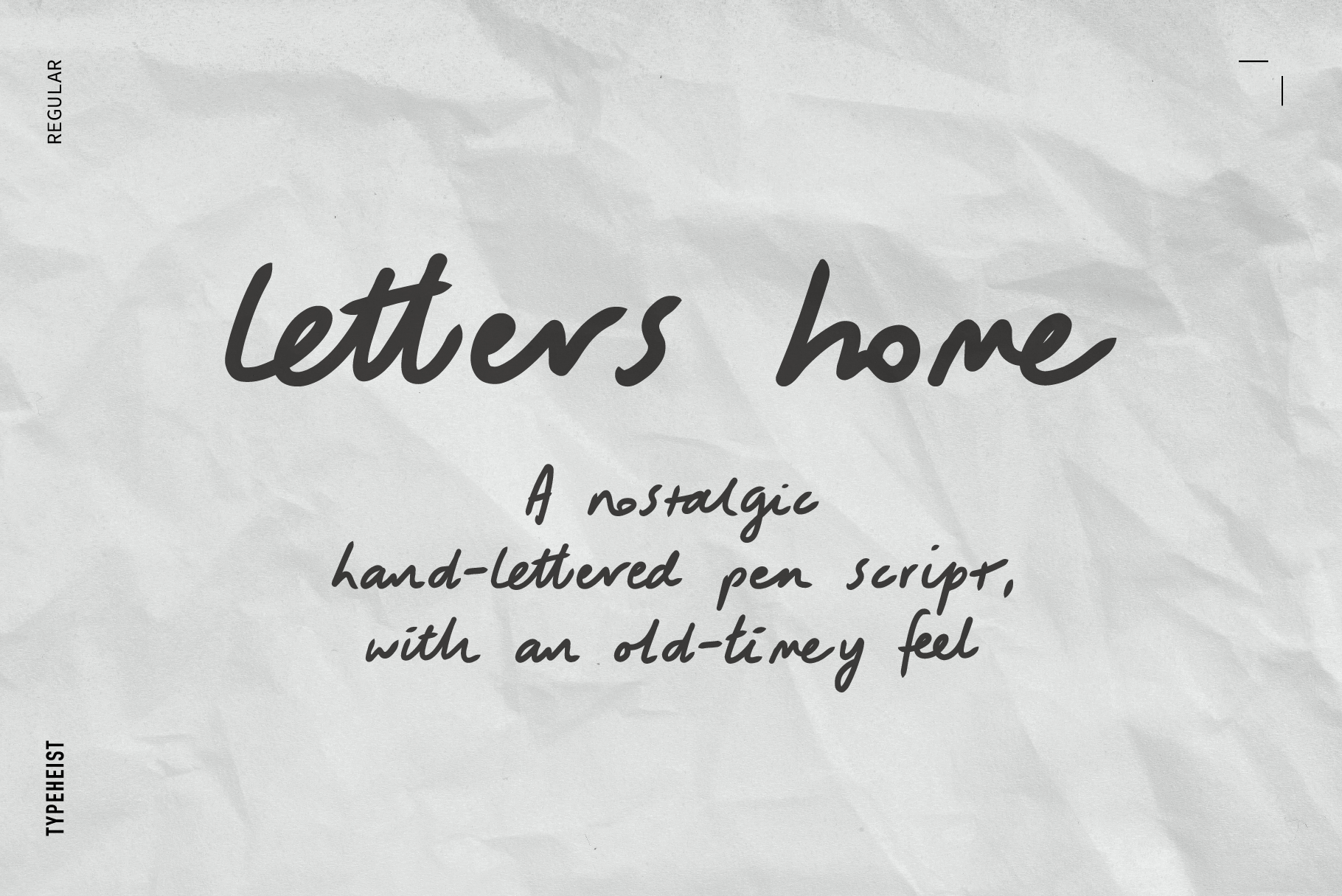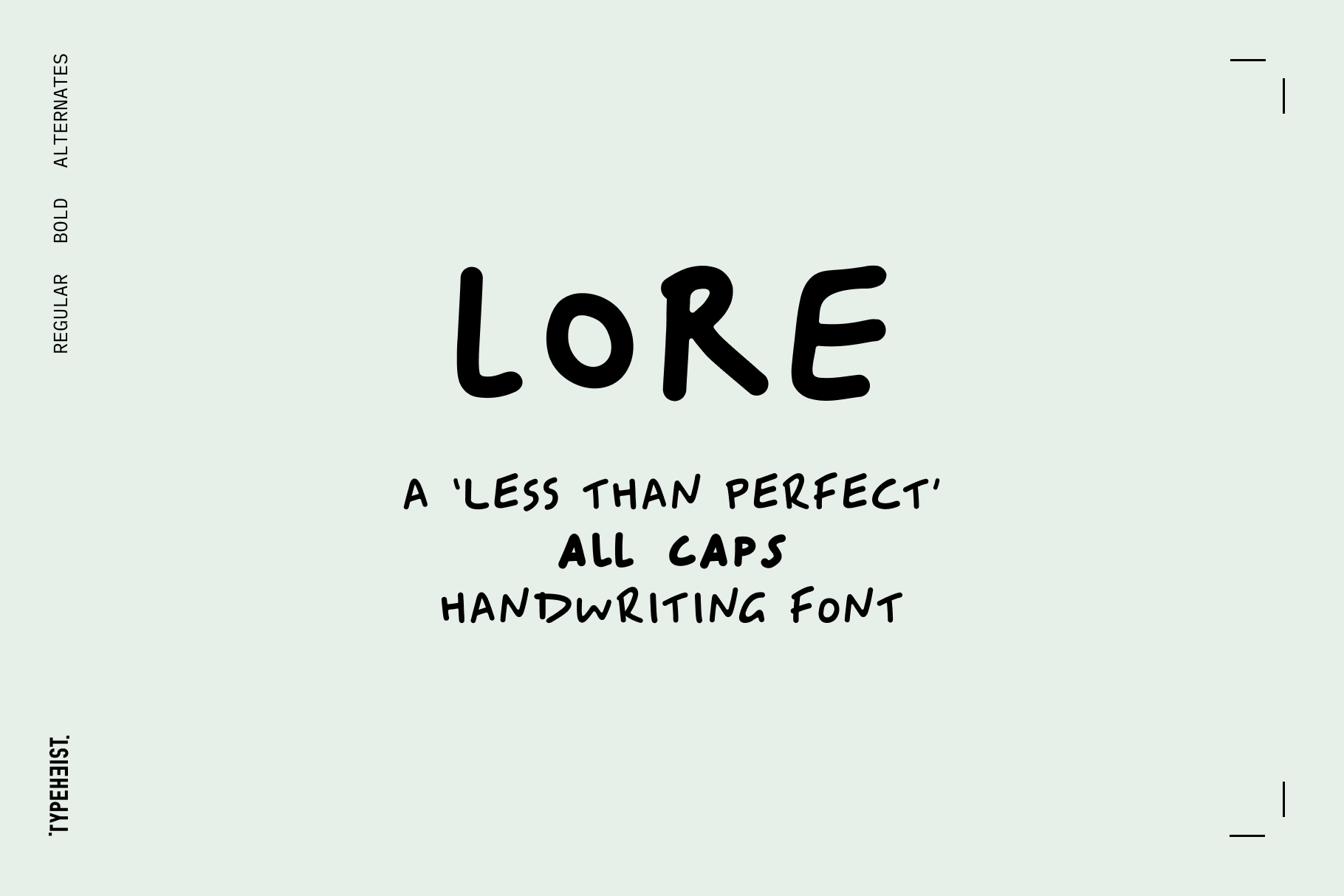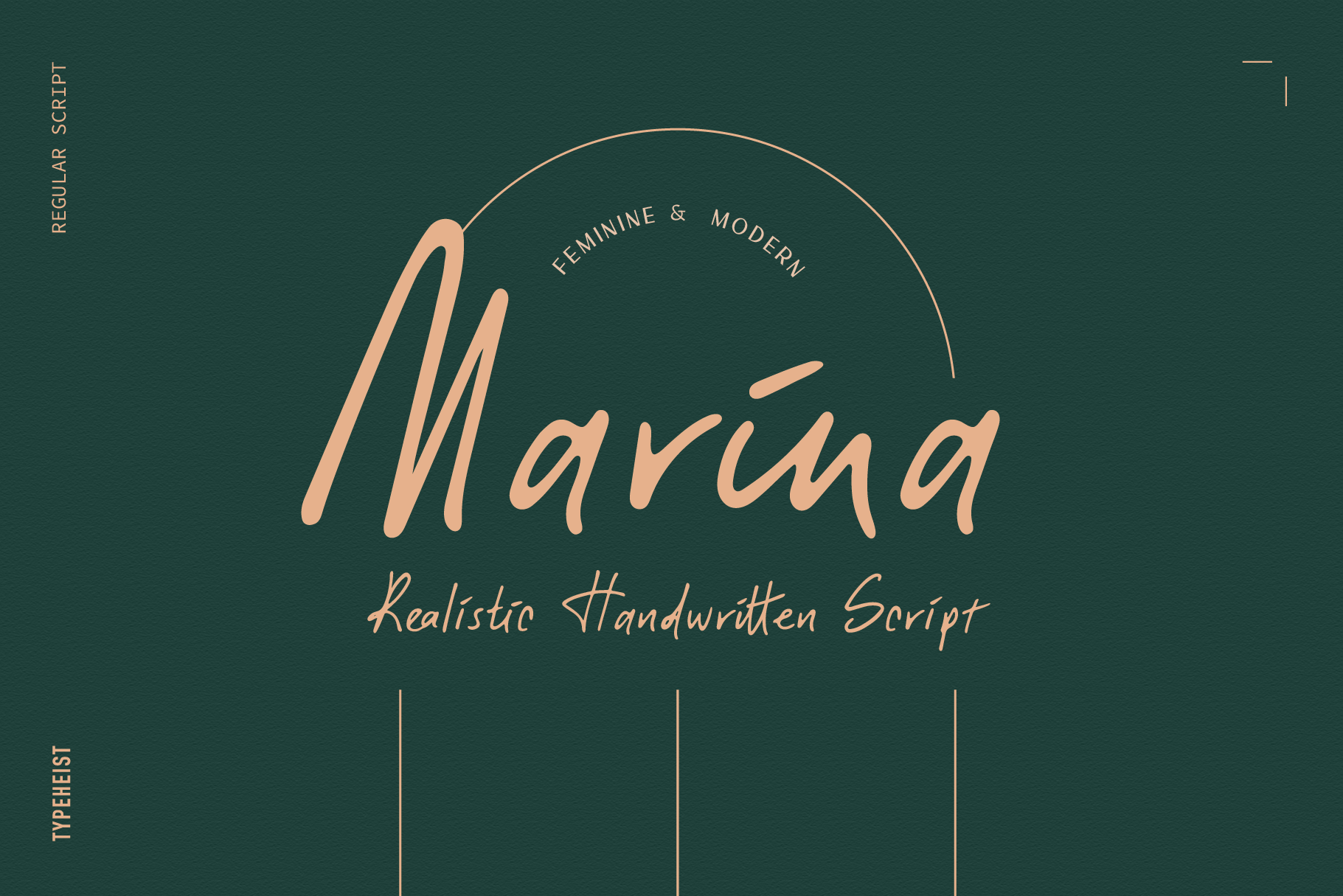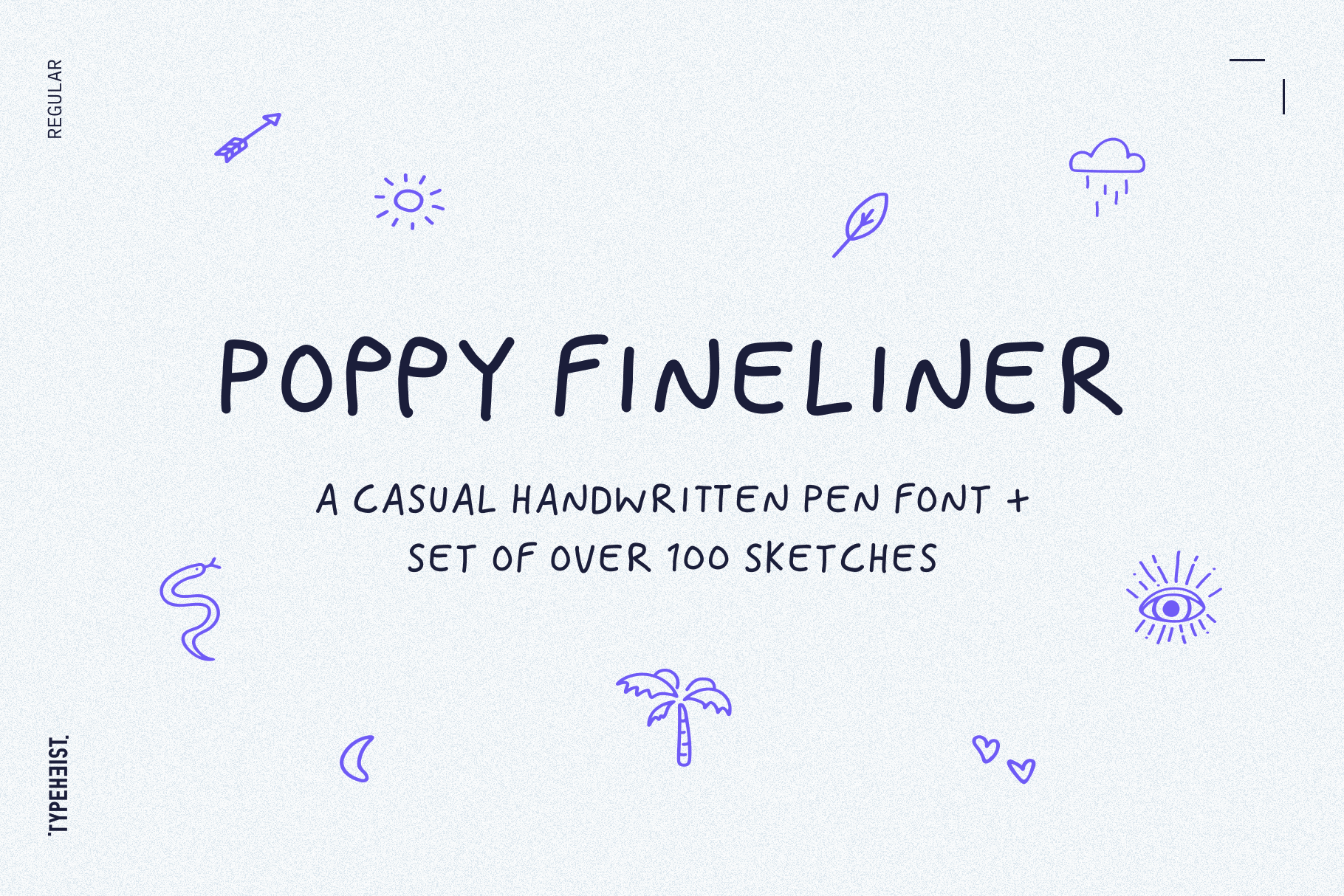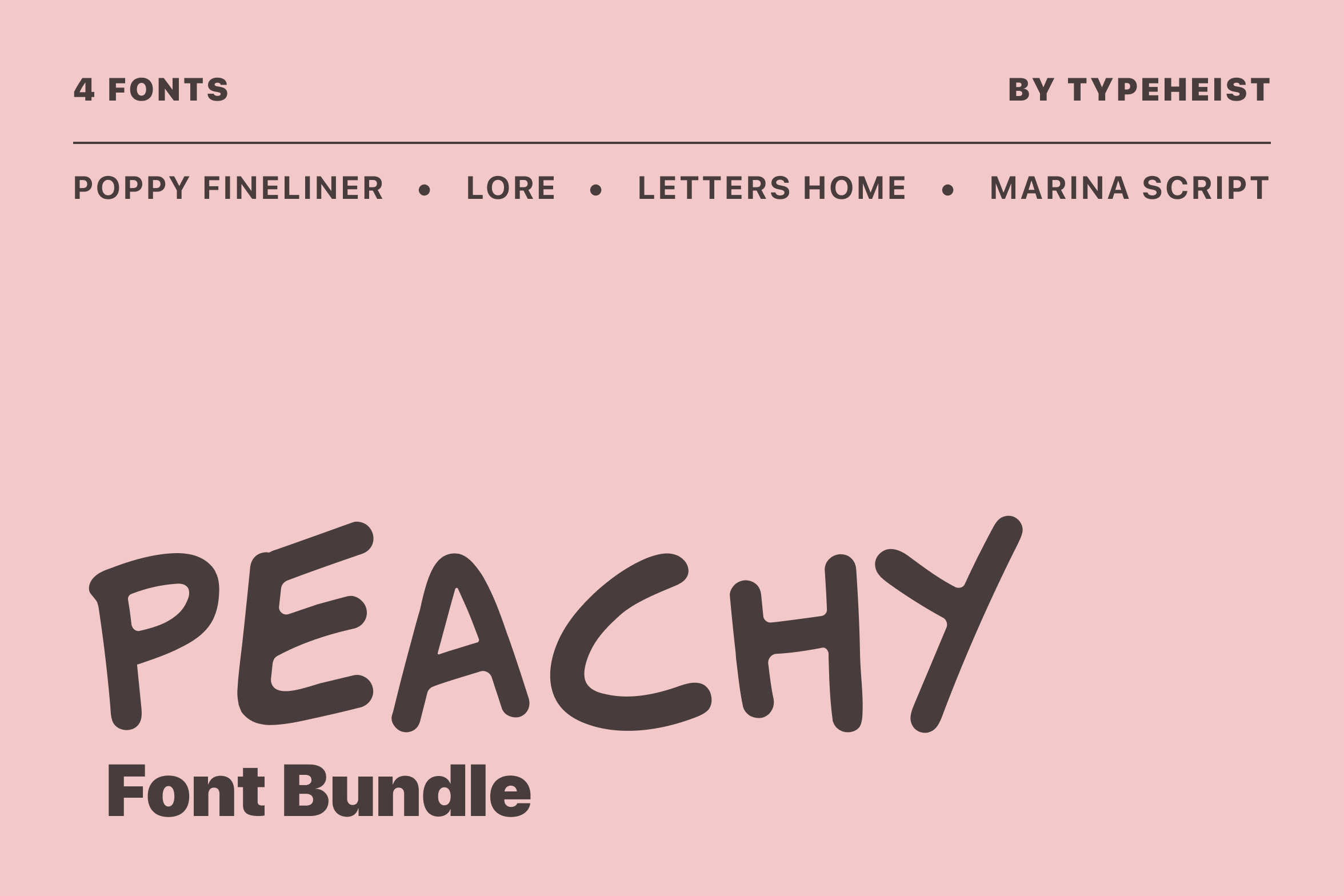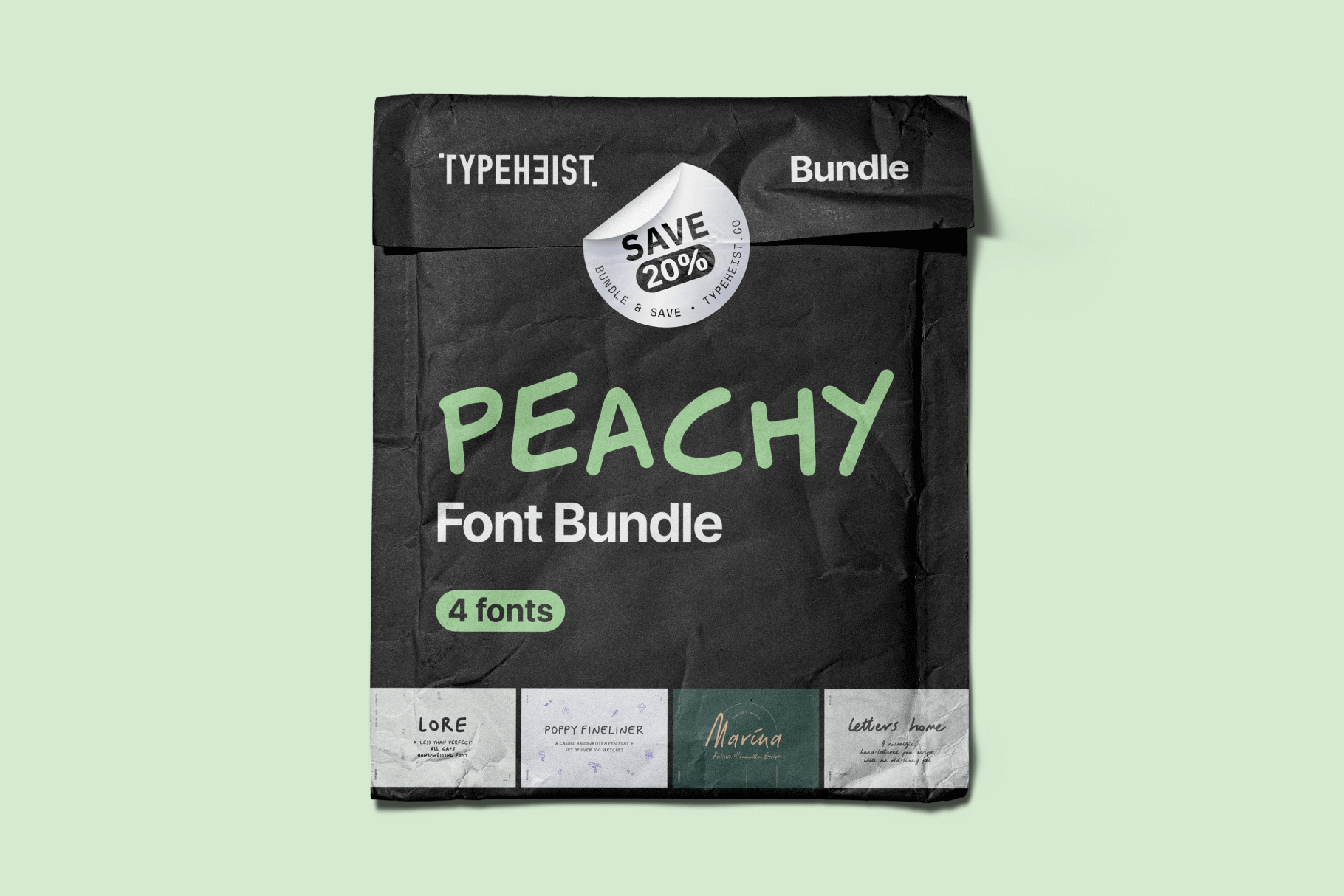
Peachy Font Bundle
- Unique handcrafted fonts with a range of glyphs and ligatures
Your go to collection
Sweeten your designs with our Peachy Font Bundle! This delightful collection features cute and casual fonts that are perfect for adding a warm, playful vibe to your projects. Whether you’re creating charming invitations, adorable logos, or playful social media posts, these fonts bring a touch of whimsy and fun to every word. Perfect for those who love a lighthearted, friendly style, this bundle is your go-to for creating effortlessly charming designs.